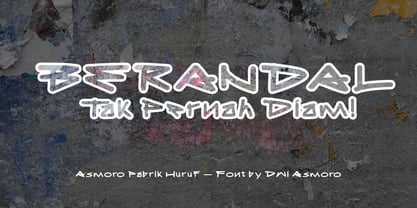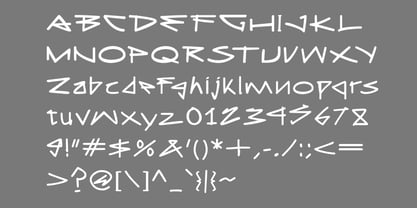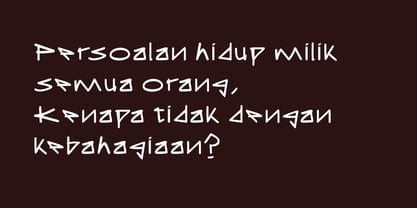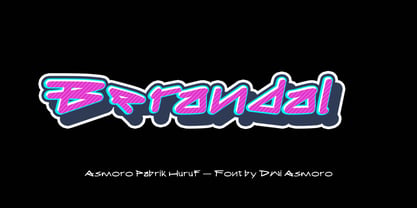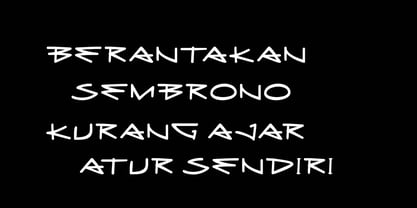
Berandal
by Asmoro Pabrik Huruf
The Berandal Font Family was designed by Dwi Asmoro and published by Asmoro Pabrik Huruf. Berandal contains 4 styles and family package options. More about this family
Berandal is a rebellious display typeface inspired by the raw energy of street art and underground culture. Its bold, slanted letterforms mimic fast, expressive hand lettering — full of attitude and designed to stand out. With sharp angles, unexpected cuts, and edgy rhythm, Berandal feels alive, like a shout in the middle of a quiet crowd.
This font is perfect for creative projects that dare to challenge the norm: music and gig posters, streetwear branding, action-packed game titles, protest graphics, zines, and more. It captures the visual language of rebellion and self-expression, making it a powerful voice for messages that refuse to be ignored.
Berandal includes uppercase and lowercase letters, numbers, and a full set of punctuation and symbols. Each glyph is crafted with a raw, human touch, maintaining legibility while embracing chaos. Whether used solo or paired with a minimal sans-serif, Berandal brings a unique, aggressive edge to your designs.
If you're looking for a typeface that speaks with a roar instead of a whisper, Berandal is your perfect partner.